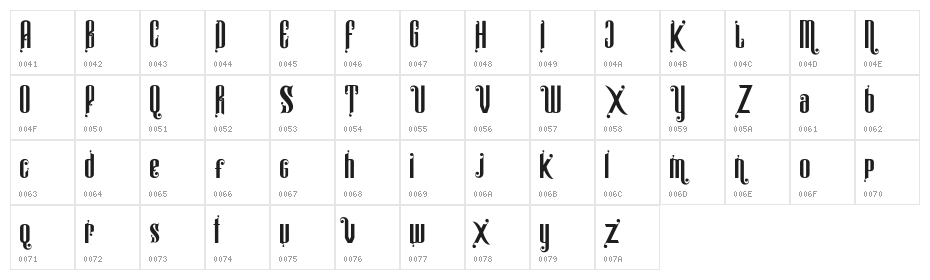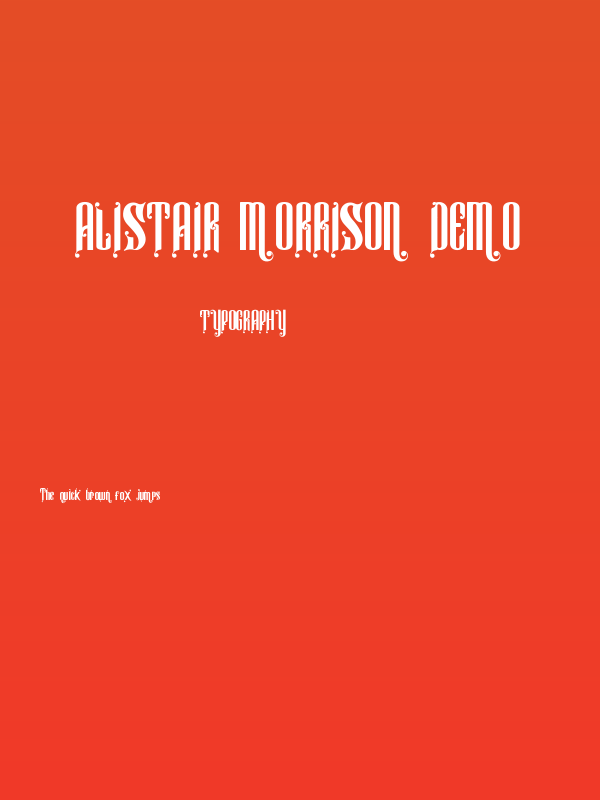
Alistair morrison demo Font
Alistair morrison demo Description
This font features a highly decorative and unique style with intricate details on each character. The uppercase letters are tall and narrow, with distinctive flourishes and embellishments that give them an ornate appearance. The lowercase letters maintain a similar decorative style, ensuring consistency throughout the typeface. The numbers and special characters are designed to match the elaborate aesthetic, making this font suitable for artistic and creative projects. Its bold and striking design makes it ideal for attention-grabbing headlines and titles.
| Proposed Projects | Ideal for artistic projects, posters, book covers, and branding that require a bold and decorative typeface. |